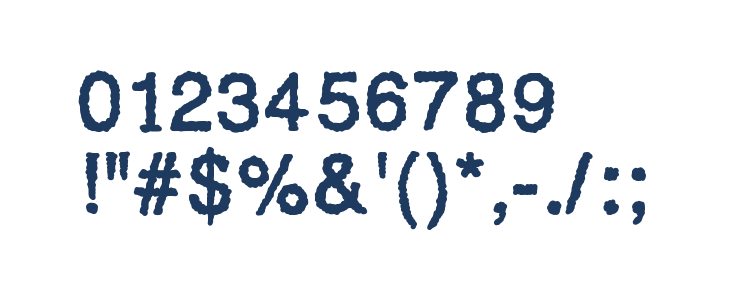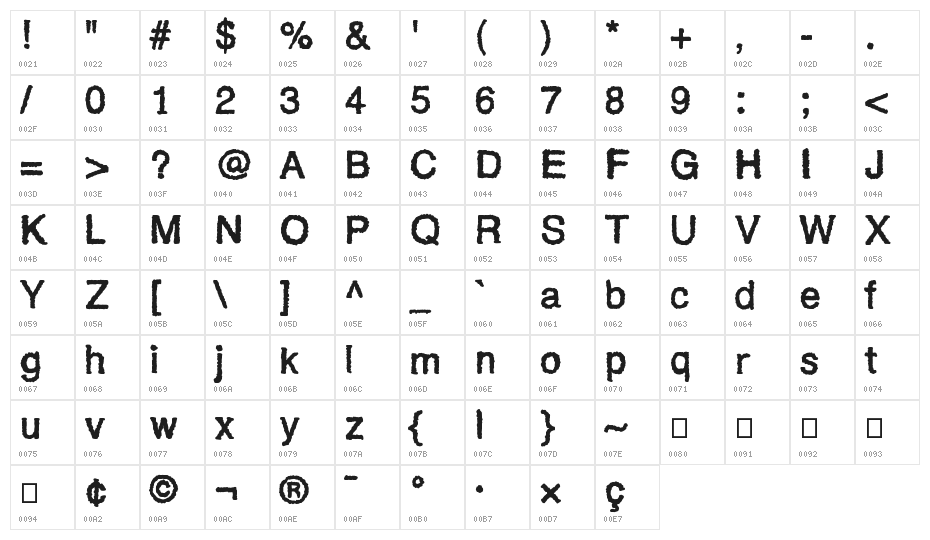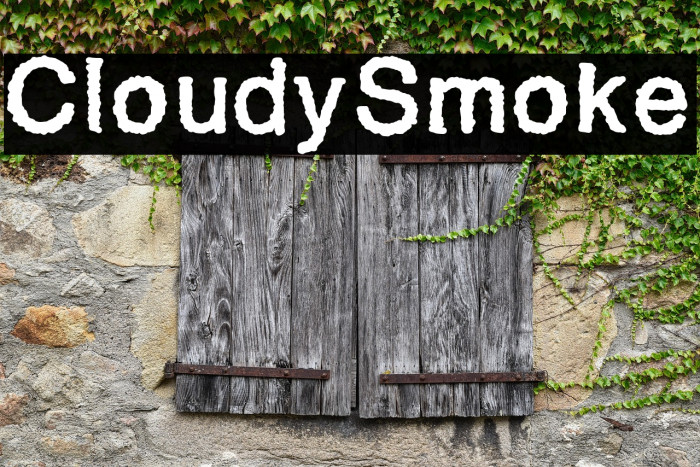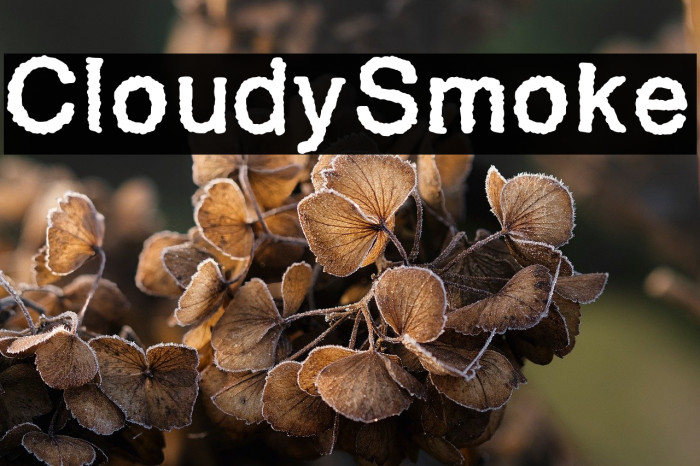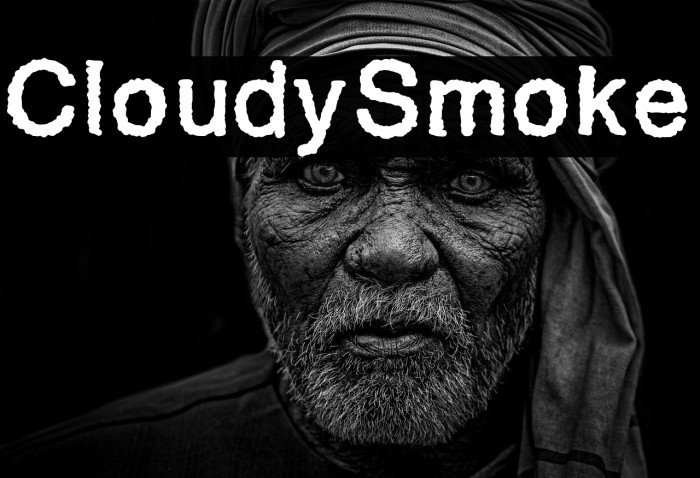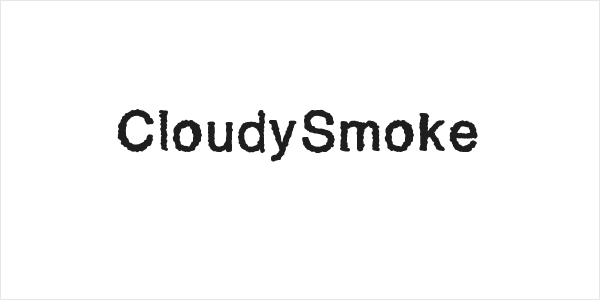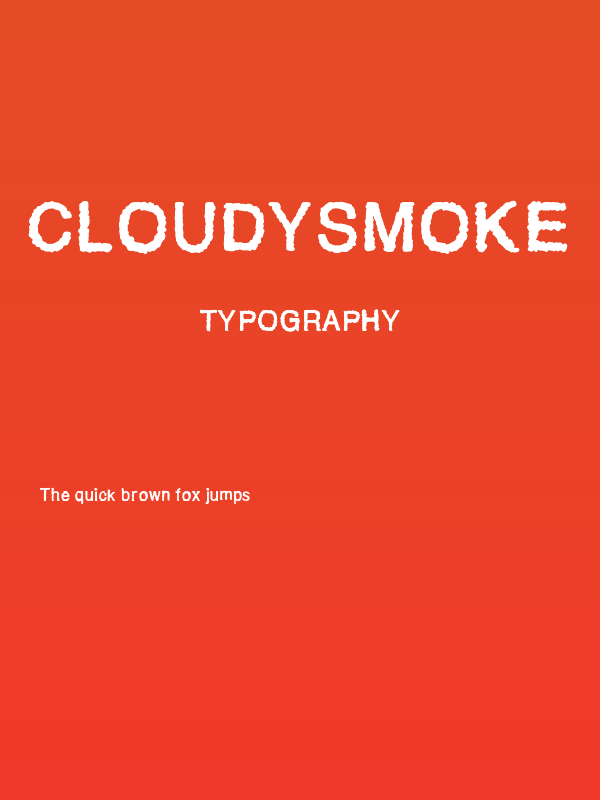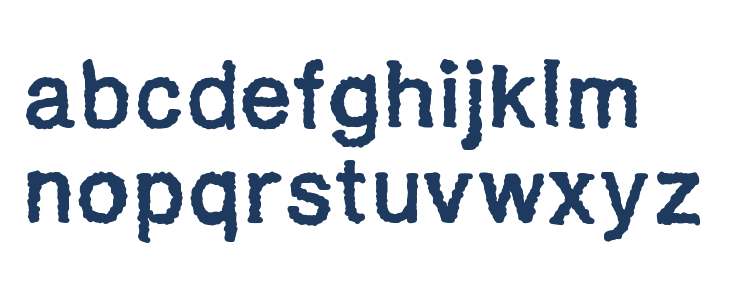
CloudySmoke Font
CloudySmoke Description
This font features a textured, rough appearance that mimics the look of letters formed from smoke or clouds. The edges are irregular, giving it a unique, organic feel. The uppercase and lowercase letters maintain consistent sizing, with a slightly bold weight that enhances its visibility. Numbers and special characters follow the same design, ensuring uniformity across all glyphs. The font's style is playful yet bold, making it suitable for creative projects that require a distinctive and eye-catching typeface.